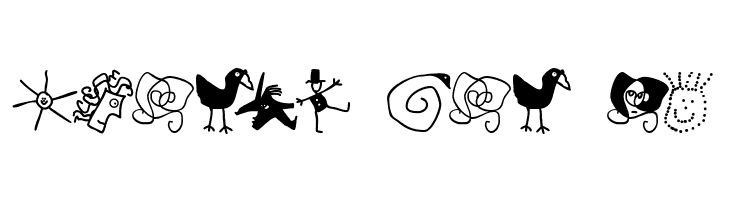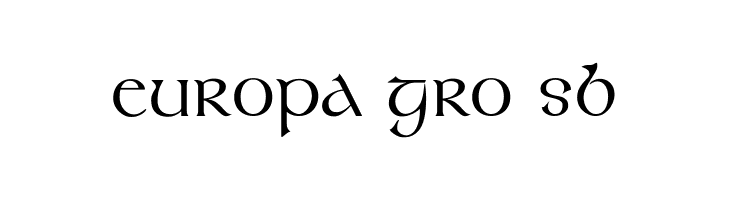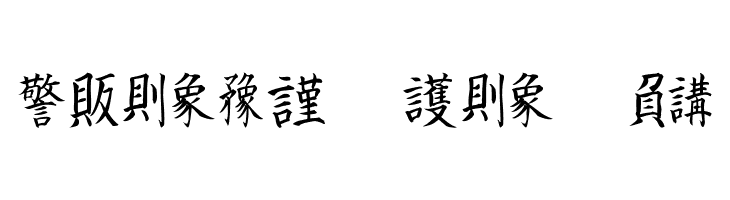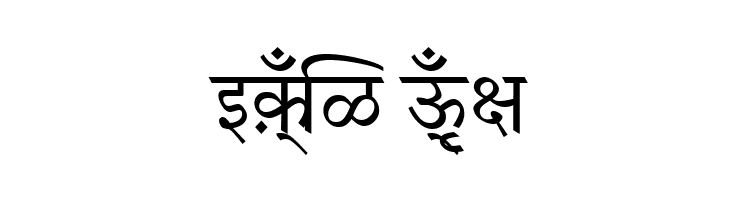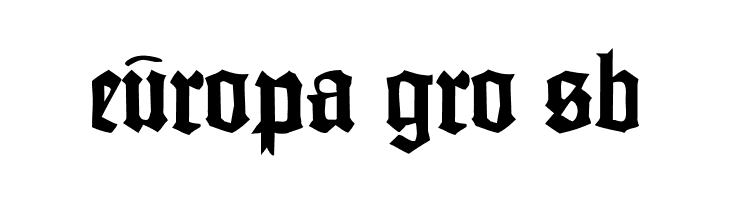
A classic blackletter font with ornate, angular letterforms.
Intricate, kaleidoscope-like symbols with geometric patterns.
A whimsical collection of hand-drawn doodles and characters.
( Fonts by Casady & Greene )
A sophisticated font combining historical elegance with modern design elements.
A bold, geometric sans-serif font with a monospaced appearance.
An abstract, artistic font with whimsical, illustrative characters.